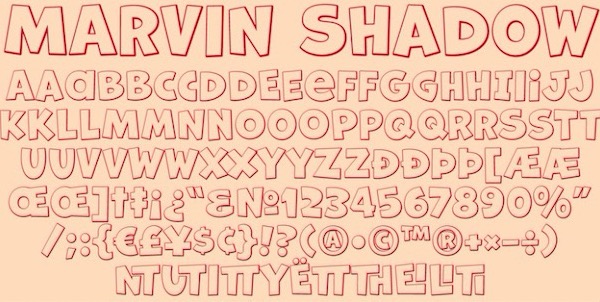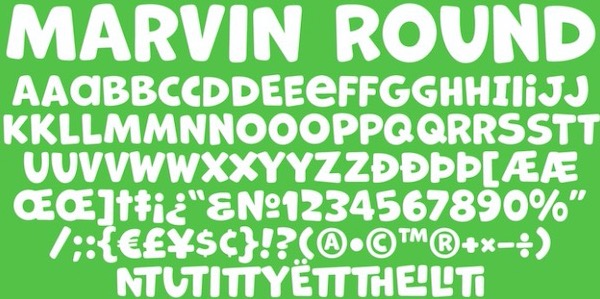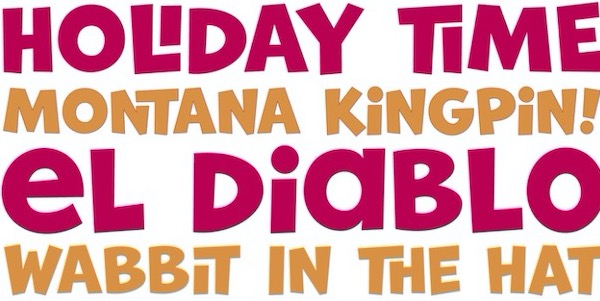
Marvin Font
Marvin is a casually elegant and modern sans serif font that will add a chic & stylish feel to any design project. With this family, you will get many features to maximize your designs with fashional fonts.